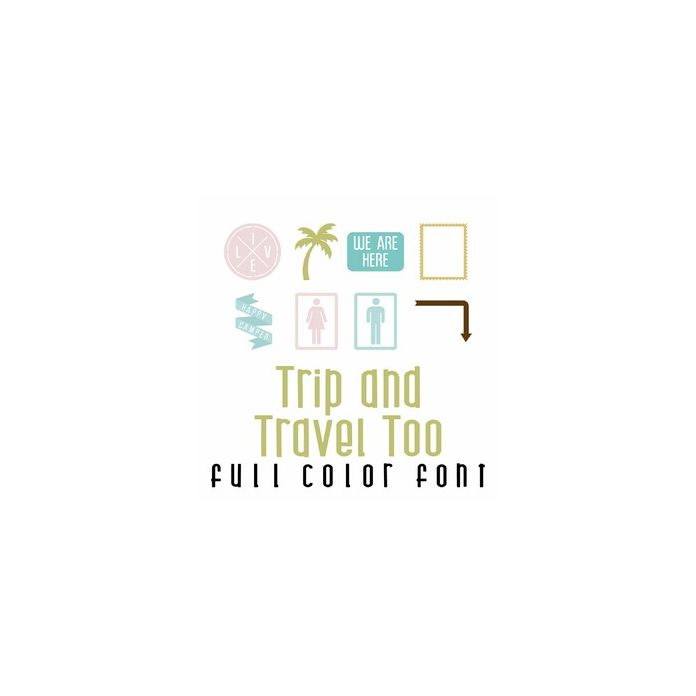
This adorable full-color doodlebat font features 36 travel and vacation images and signs. Perfect for cards, crafts, gifts, decor, scrapbook pages, planner stickers, and more! Glyphs are A-Z and 0-9.